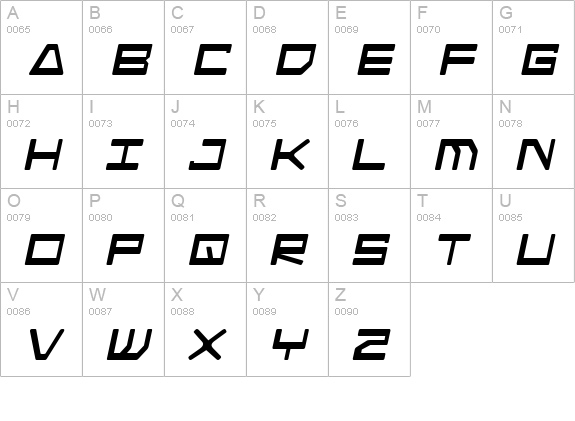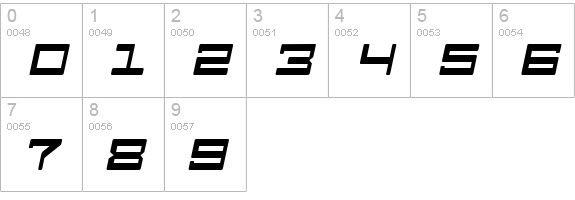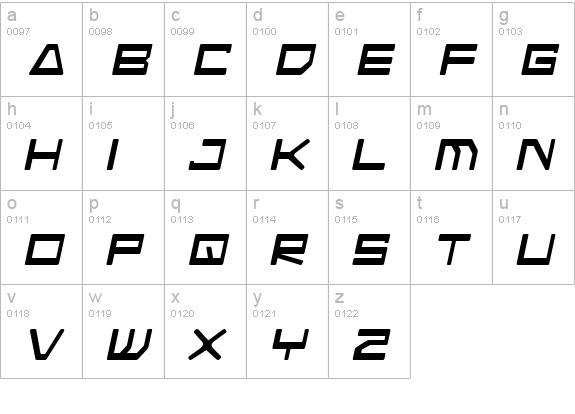
Android Nation Italic is a distinctive, italic variant in the Android typeface family \xE2\x80\x94 well suited to design and typography projects.
Introducing Android Nation Italic font - a sleek and modern typeface that exudes sophistication and elegance. With its stylish slanted design and sharp edges, this font is perfect for adding a touch of contemporary flair to any project. The Android Nation Italic font is versatile and can be used for a wide range of design purposes, from branding to editorial work. The best part? Android Nation Italic font is completely free to download at FontsMarket.com. Now you can elevate your designs with this premium font without breaking the bank. Don't miss out on this opportunity to enhance your projects with the sleek and stylish Android Nation Italic font. Download it today and take your design game to the next level!